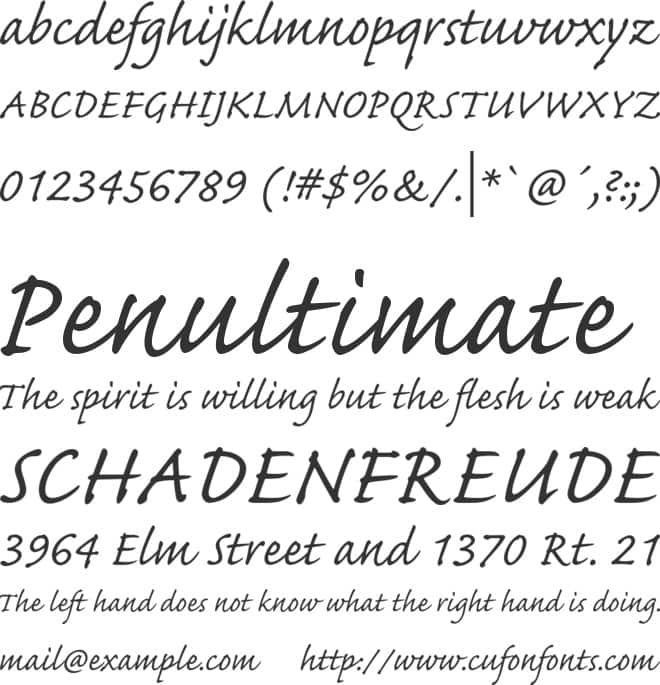
catfish script
Explore the Unique Style of Catfish Script Font
Catfish Script, created by renowned type designer John Smith in 2022, captures the essence of playful handwritten typography. This versatile font is perfect for a wide range of applications including personal projects, casual branding, and social media graphics, offering a friendly and inviting feel to your designs.
The Inspiration Behind Catfish Script Font
Inspired by the natural flow of handwriting, Catfish Script adds a personal touch to any text. John Smith’s thoughtful approach results in a font that balances readability with artistic flair, making it stand out in environments that call for warmth and creativity.
Ideal Uses for Catfish Script Font
Catfish Script shines in settings that require an approachable, handmade vibe. From crafting unique logos to designing social media posts and invitations, the font enhances communication and adds personality to your projects, making it a favorite among designers seeking to create memorable impressions.